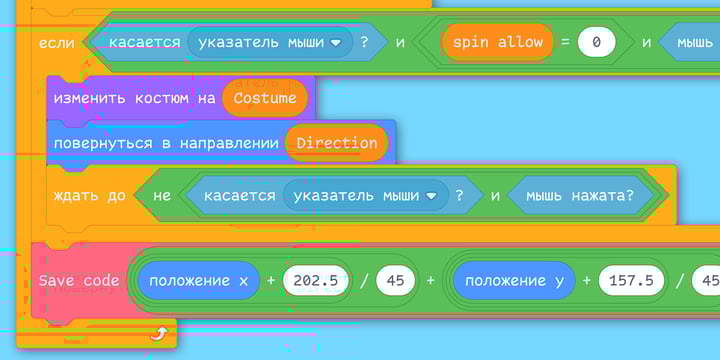
Comic Code
by Tabular Type Foundry
Comic Code Font Family was designed by Toshi Omagari and published by Tabular Type Foundry. Comic Code contains 29 styles and family package options.
About Comic Code Font Family
Comic Code is a monospaced adaptation of the most infamous yet most popular casual font. Designed specifically for programming, which is a corner of typography that involves intensive typing that feels more akin to handwriting than typesetting, this typeface took inspirations from friendly characteristics and low-resolution legibility of Comic Sans. It is an unapologetic admittance of Comic Sans's positives, and a literal manifestation of "code like nobody's watching". Comic Code only takes inspiration from Comic Sans and was drawn entirely from scratch, in case you are wondering. NOTE: Ligatures are off by default (available as OpenType dlig feature), and you may want Comic Code Ligatures instead.